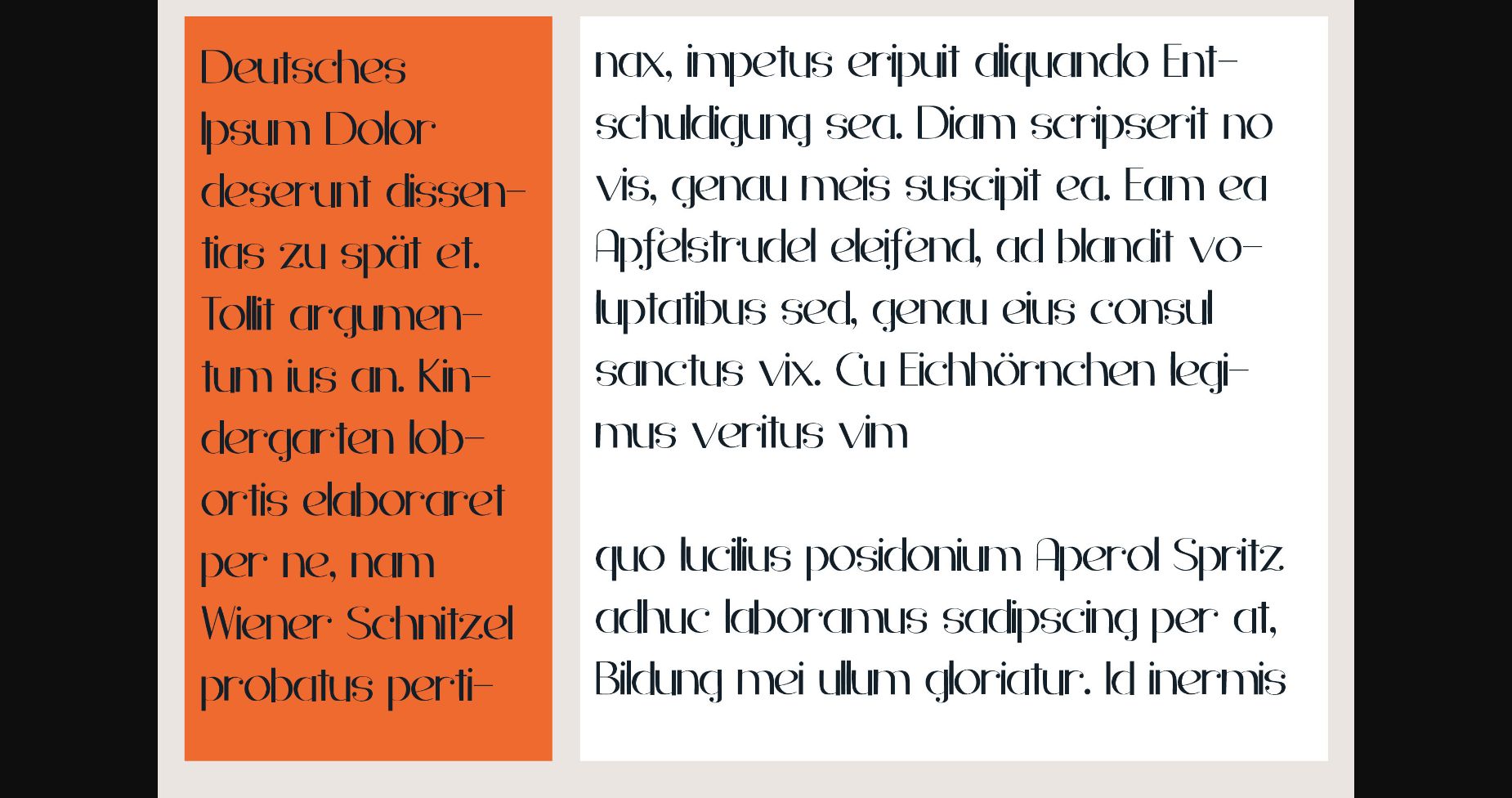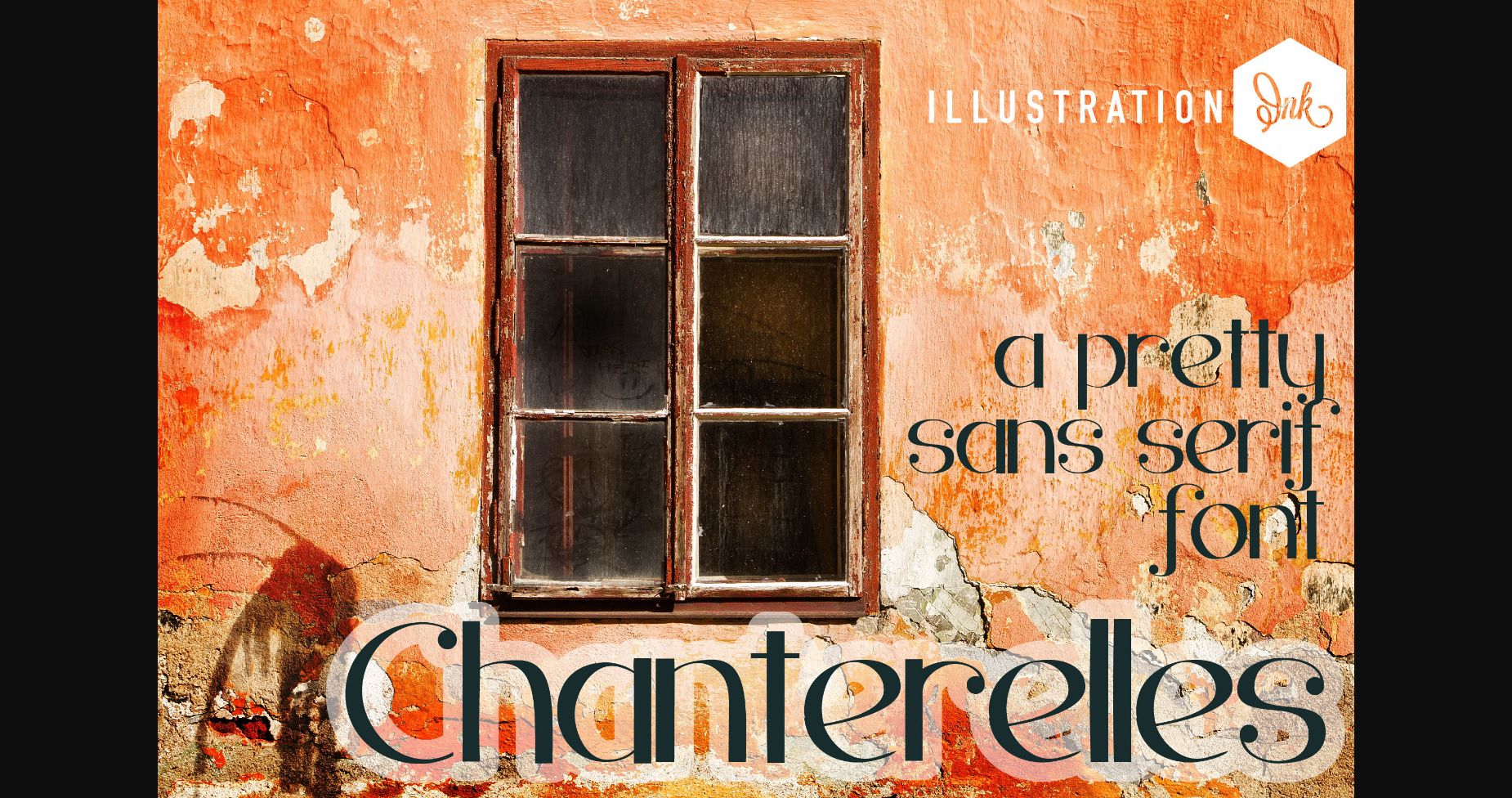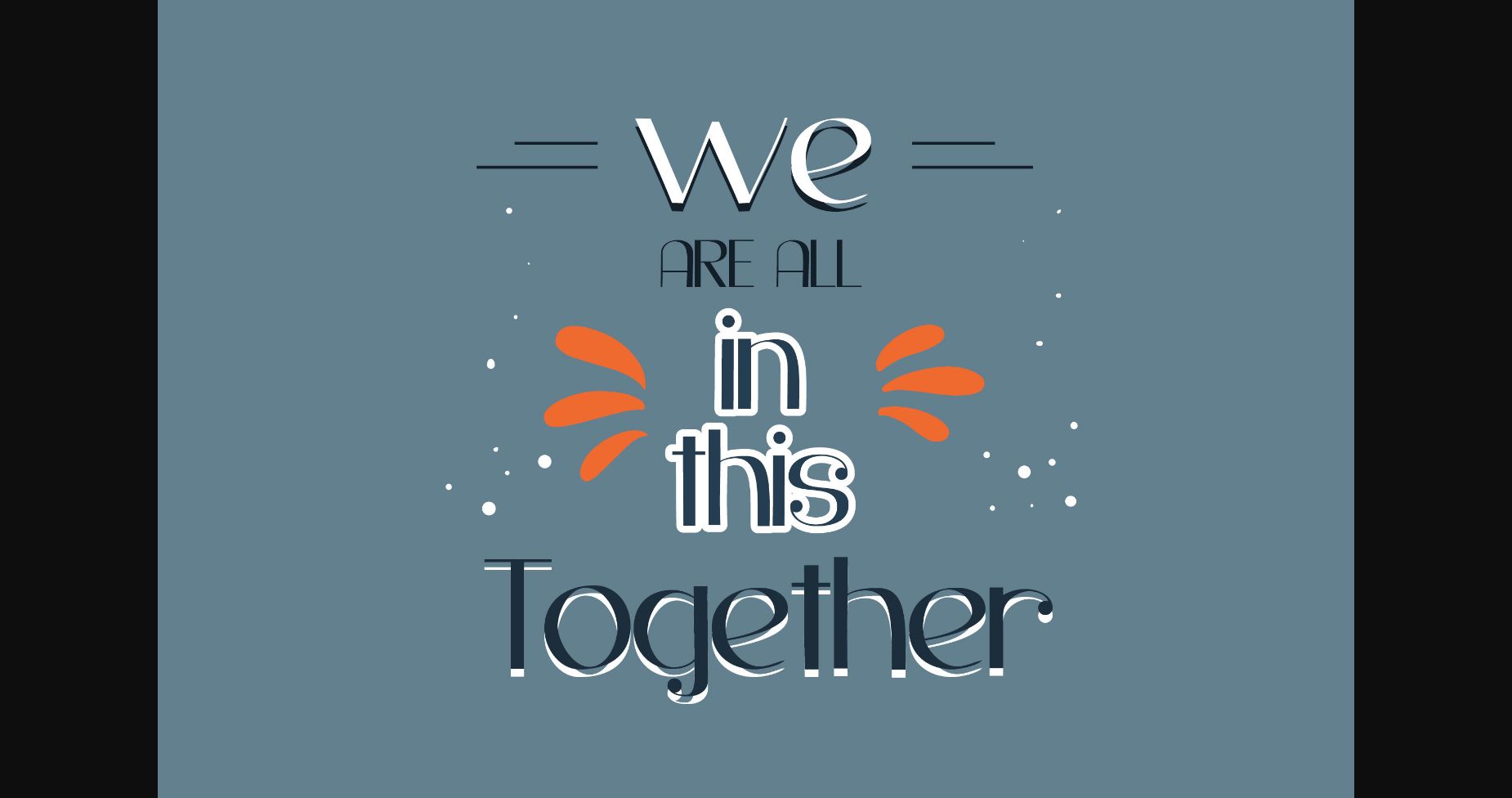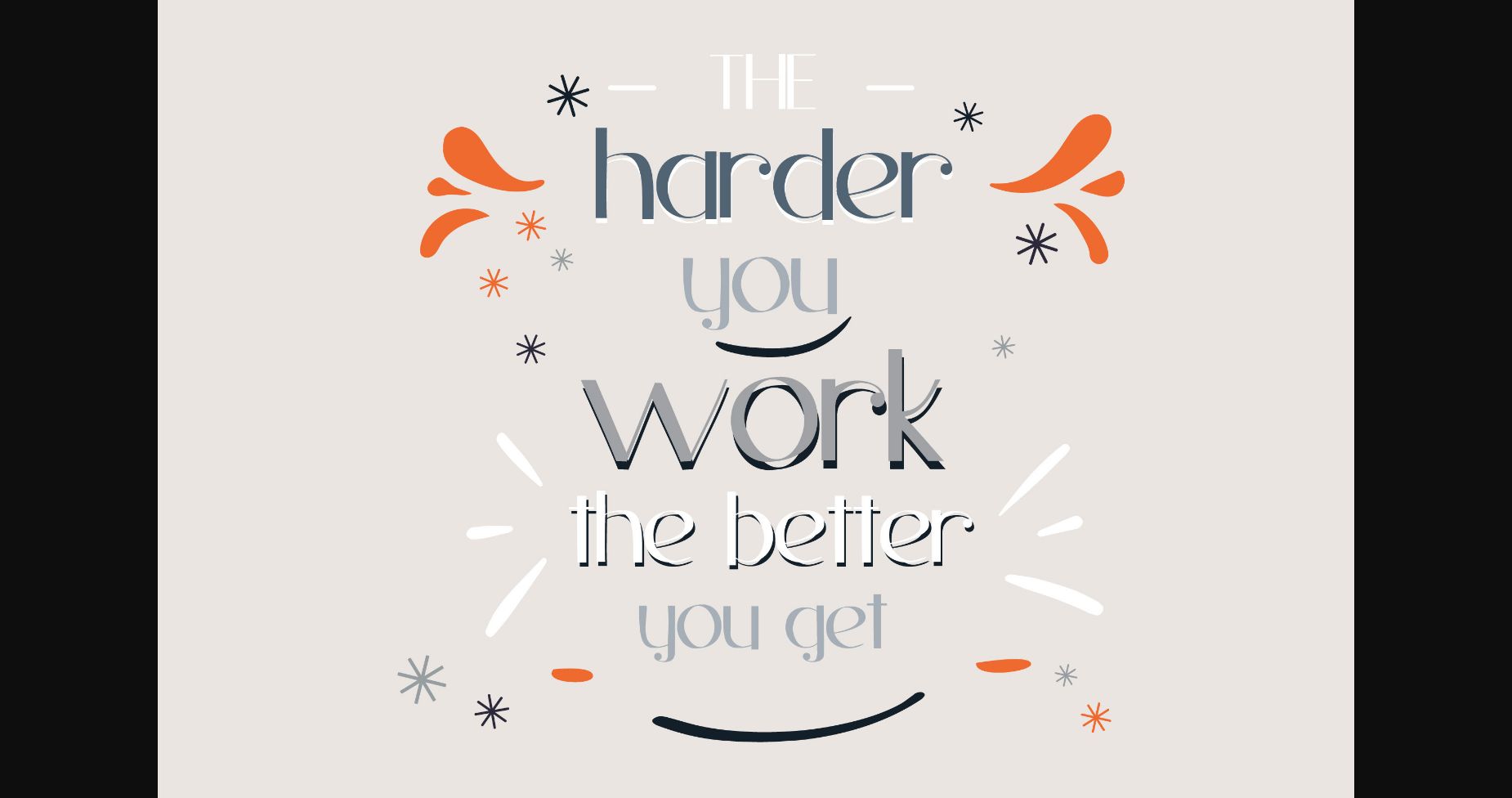
About Chanterelles Font
This pretty sans serif has a bit of a formal vibe, but it still maintains a slightly quirky touch. Chanterelles is neatly crafted and highly detailed. Whatever the topic, this font will be a wonderful asset to your font library, as it has the potential to enhance any creation.